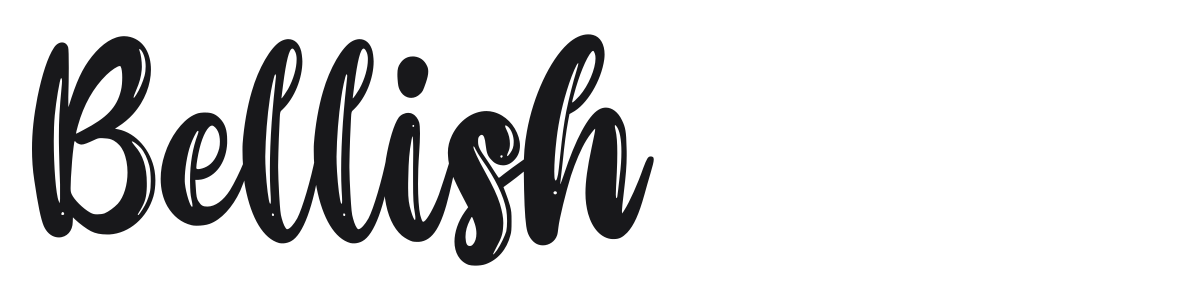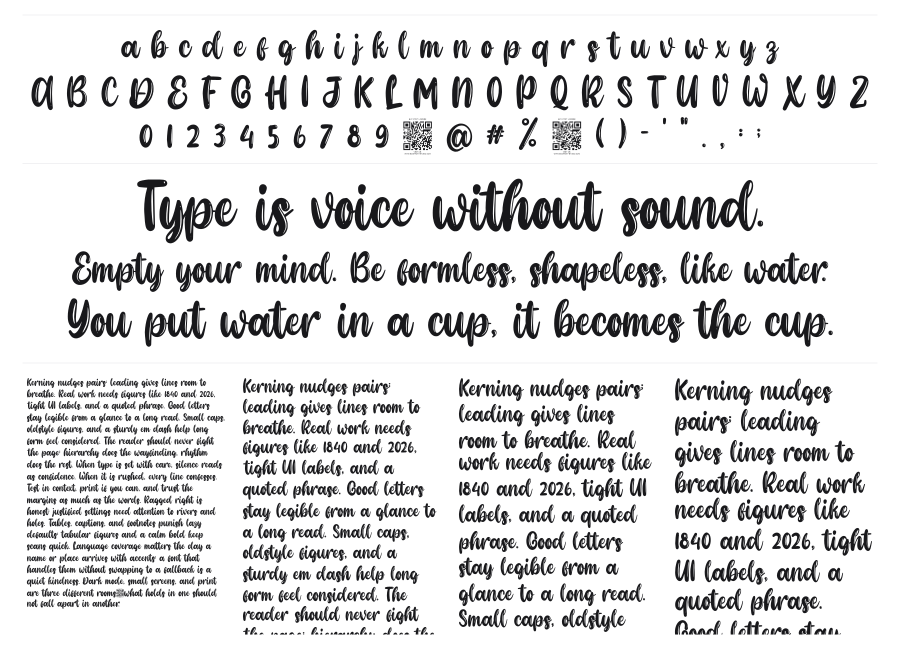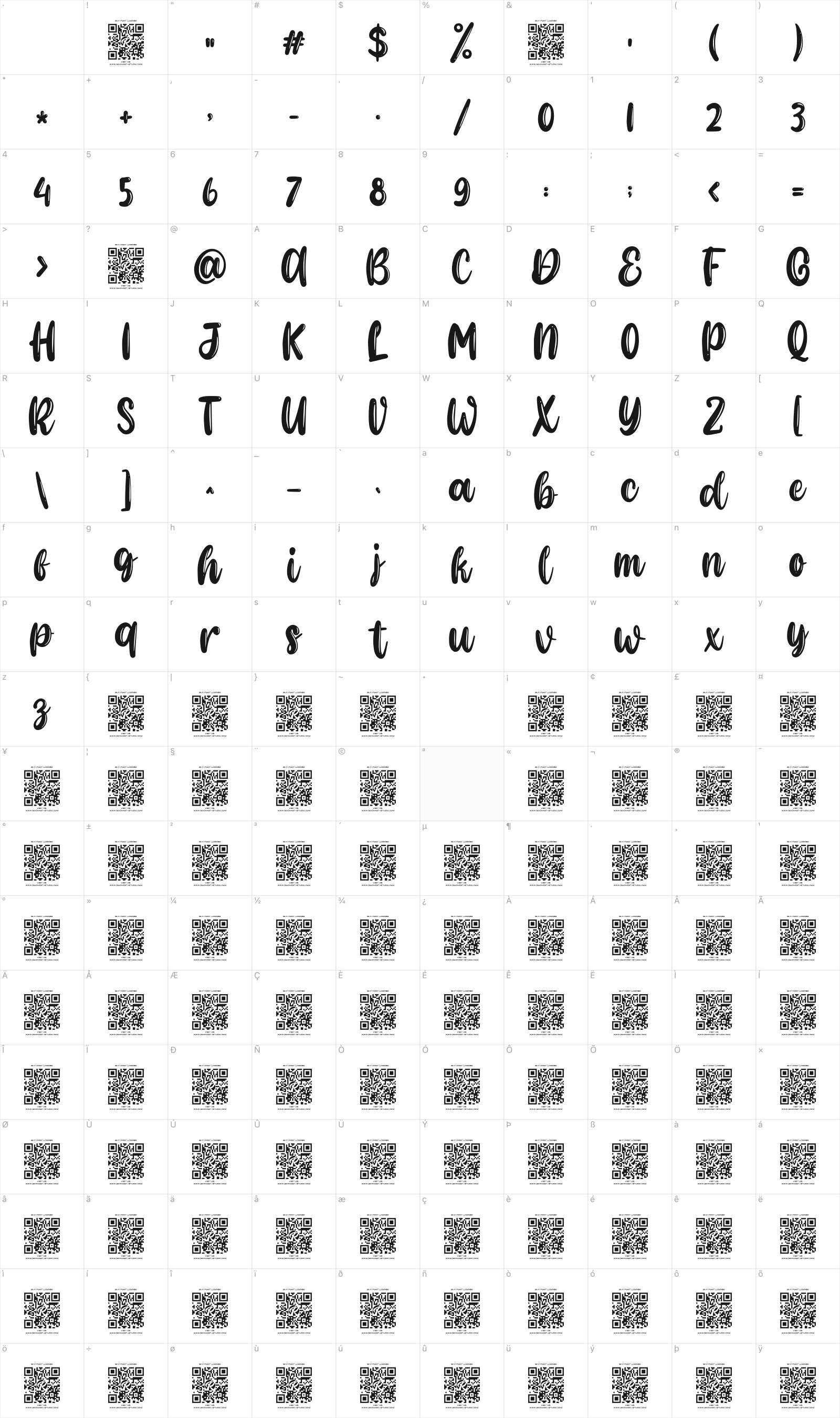
Bellish
by Rochart Studio
Bellish is a bold brush script with thick, ink-rich strokes and a lively hand-painted energy. The high contrast between heavy downstrokes and thin hairlines gives it a calligraphic depth, while the rounded terminals and slight texture keep it feeling approachable rather than formal. It reads immediately as warm and casual, making it a strong choice for brand identities, packaging, and poster work where personality matters.